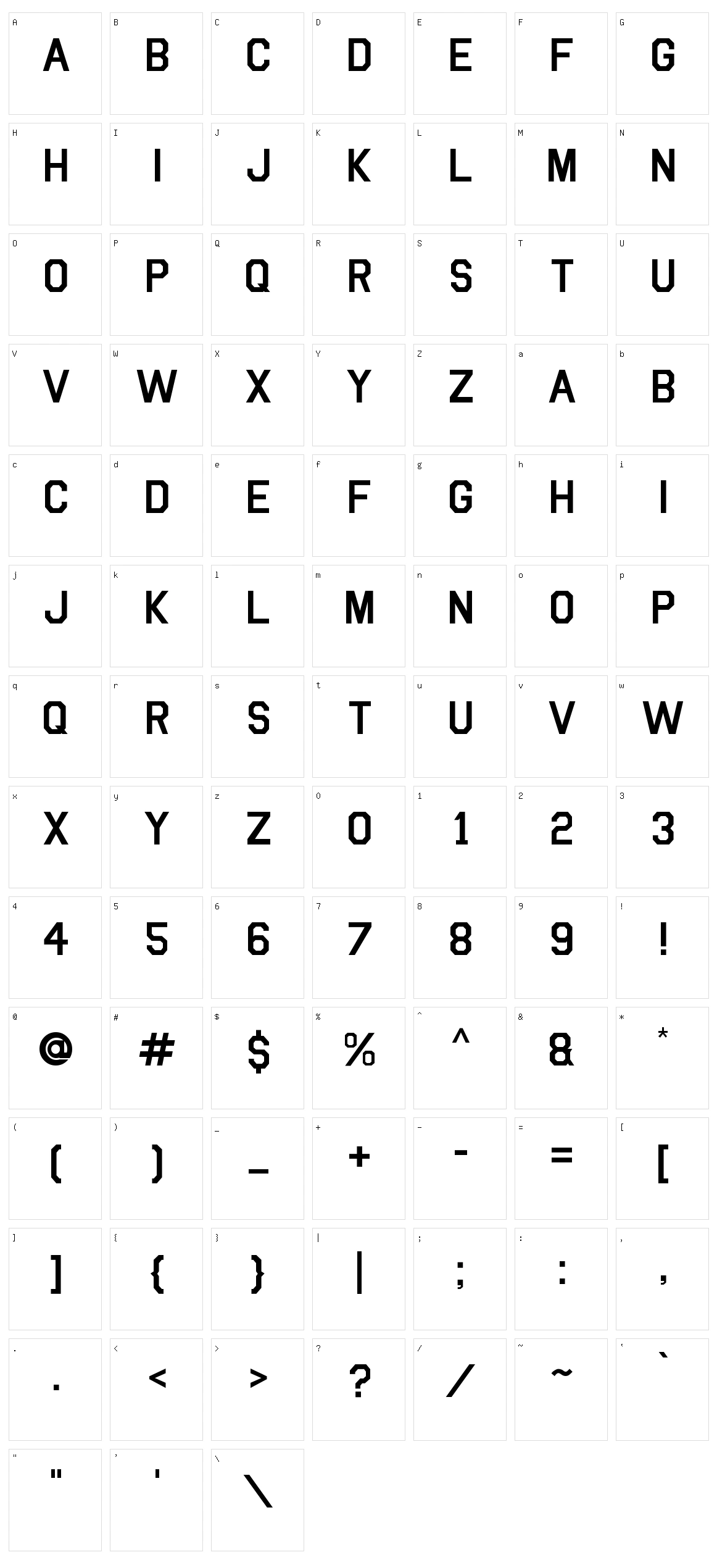
The free font Bou College is carefully designed by Bou Fonts, showcasing a thoughtful balance of creativity and usability and falls under the Old School font style. When you download the ZIP file, it contains only 33.94 KB of font files, making it lightweight and quick to download. Please review the license details below to understand permitted usage and distribution rights. If license information is not available, we recommend using this font for personal projects only or contacting the author directly for commercial usage permissions.
Includes caps, numbers, punctuation and international characters for: Albanian, Basque, Catalan, Danish, Dutch, English, French (without OE ligatures), Finnish, German, Icelandic, Italian, Indonesian, Norwegian, Portuguese, Spanish & Swedish.